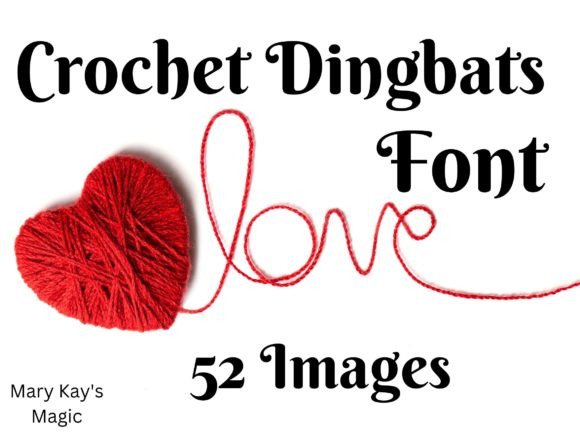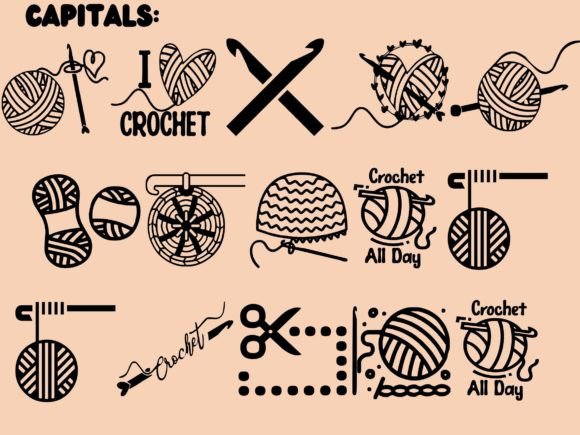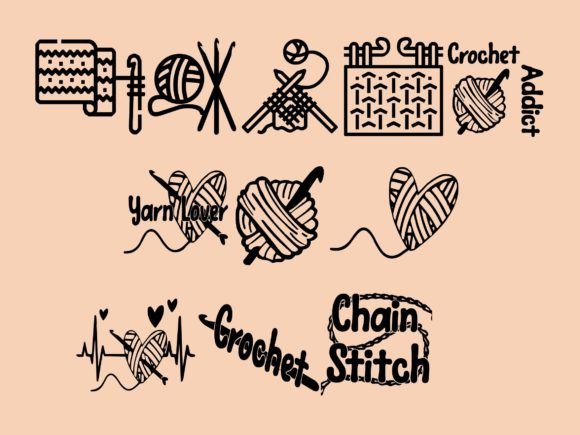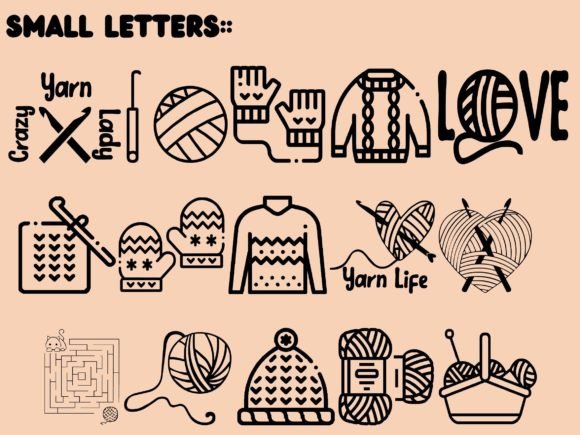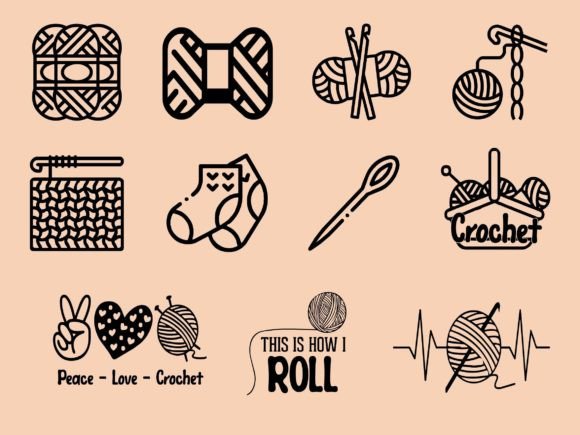
Crochet Font
Crochet is a fun and useful dingbats font. For crochet lovers, this is a fantastic asset. So add it now to your font collection and get crafty!